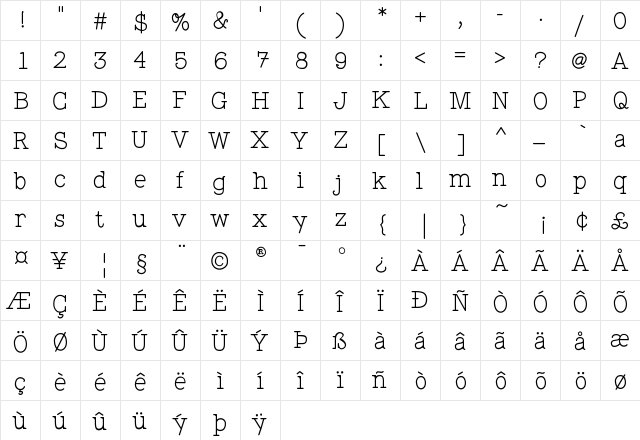
WigendaTypewrite Medium Font Preview
WigendaTypewrite Medium
Design Context for WigendaTypewrite Typeface
WigendaTypewrite is a composed and adaptable typeface that performs quietly and consistently across a wide range of design contexts.